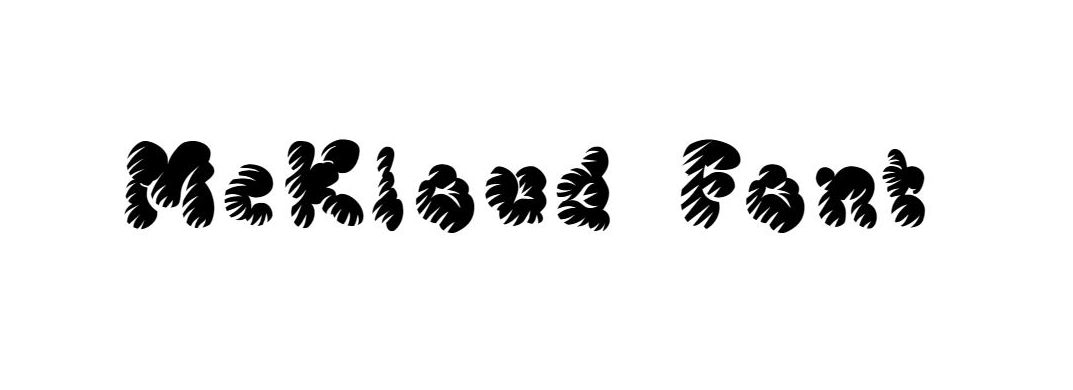
McKloud
What You Can Type With McKloud
You get every letter from A to Z in both cases and all the numbers from 0 to 9, which means McKloud can handle full sentences, dates and prices. Common punctuation such as &, !, ? and @ is included as well. It also has the accented letters you need for Spanish, French, German, Portuguese and Italian.
Where McKloud Works Best
McKloud is a natural fit for kids' books, birthday invites and fun YouTube thumbnails. Cartoon fonts are great for short, fun lines. If you place it over a busy photo, add a thick outline or a drop shadow so it stays readable.
Does McKloud support accented letters?
Yes. McKloud includes the accented letters needed for Spanish, French, German, Portuguese and Italian, so it works for more than just English.